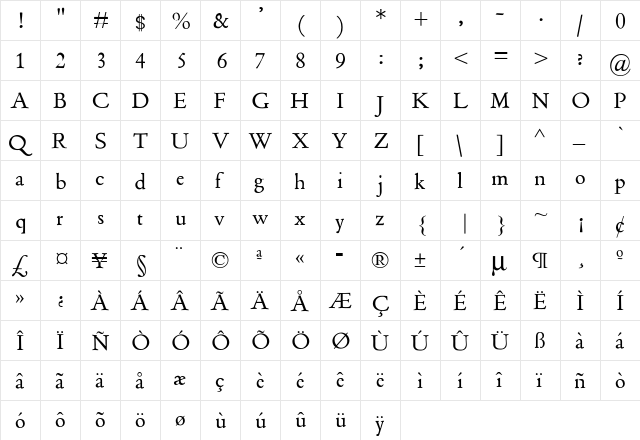
Poliphilus Regular
Design Context for Poliphilus Typeface
Poliphilus is a composed and adaptable typeface that performs quietly and consistently across a wide range of design contexts.